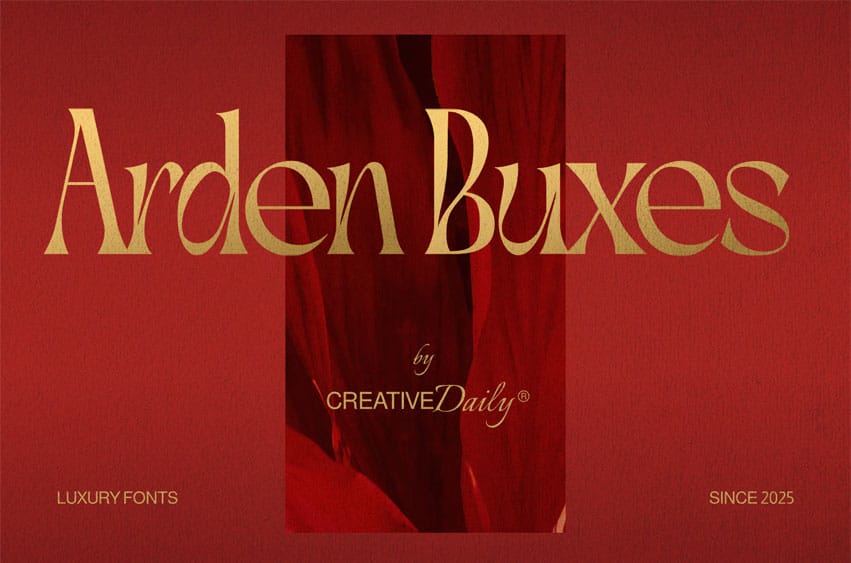
Arden Buxes Font is a bold and elegant font with a clean, minimal touch. Designed for corporate logos, modern branding, and creative projects, it brings strong visual impact while staying refined and professional.
Perfect for cinematic titles, travel promotions, cafe branding, and music covers, Arden Buxes gives your design a timeless and confident style that stands out in any setting.